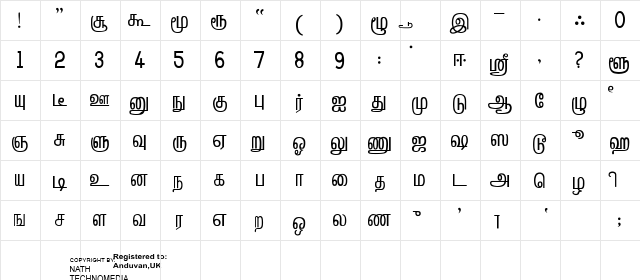
TML Helv Plain
Design Context for TML Helv Typeface
TML Helv is a composed and adaptable typeface that performs quietly and consistently across a wide range of design contexts.